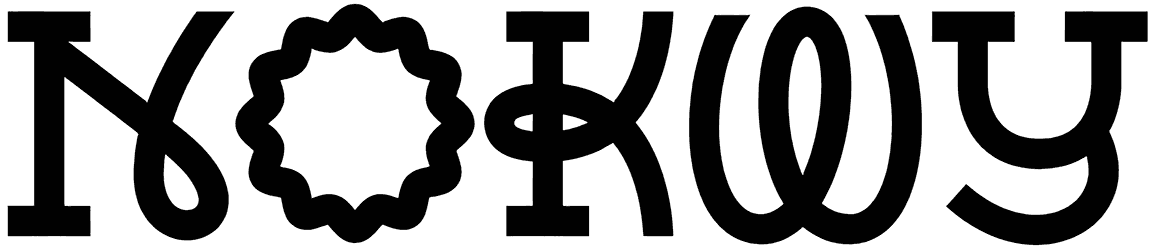
Nokwy Font
The whole point of using a playful font like this one is to add a capturing visual to your design. The Nokwy font’s characters have a modern and distinct form that could be interesting for many people with any taste. Benefit from this poster font to give a curvy form to your words and create a surprising outcome.